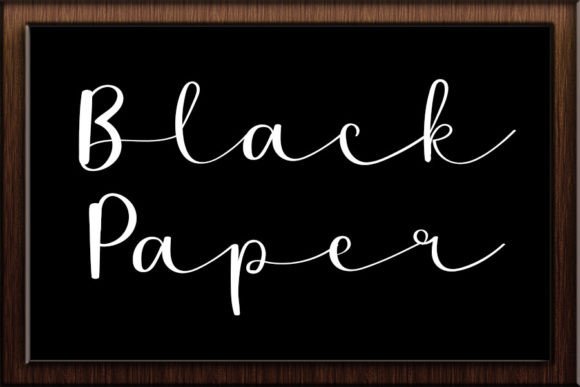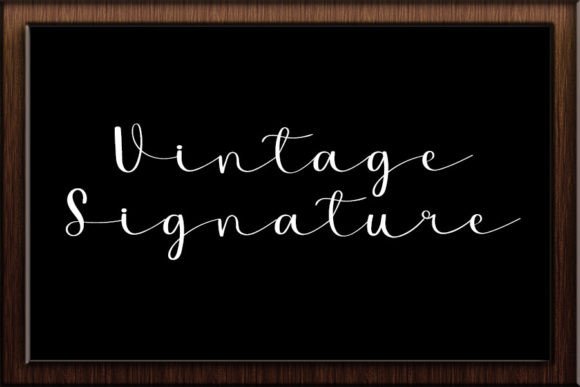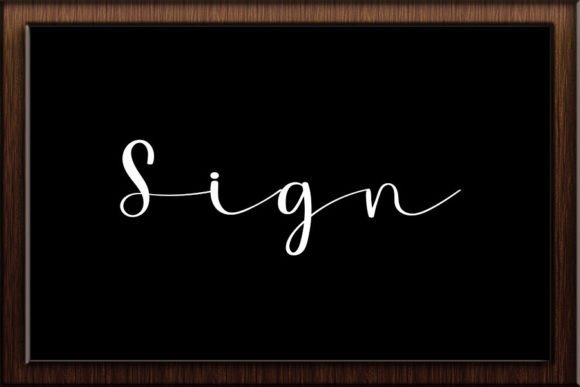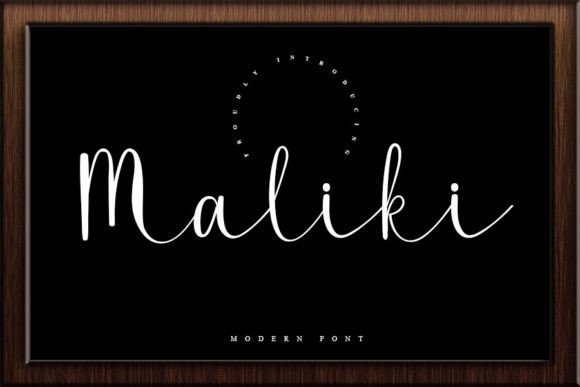
Introduction to Maliki Font
Maliki feels equally charming and elegant.
It looks stunning on wedding invitations, thank you cards, quotes, greeting cards, logos, business cards, and every other design which needs a handwritten touch .
Maliki Font offers exceptional quality and versatility, making it a valuable addition to your design toolkit. Whether you’re creating for personal projects or commercial use, Maliki Font delivers professional results.